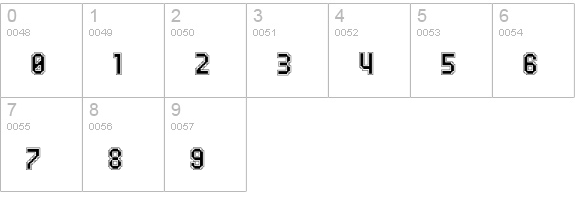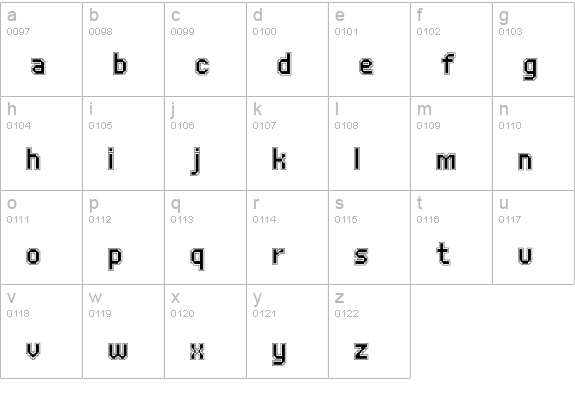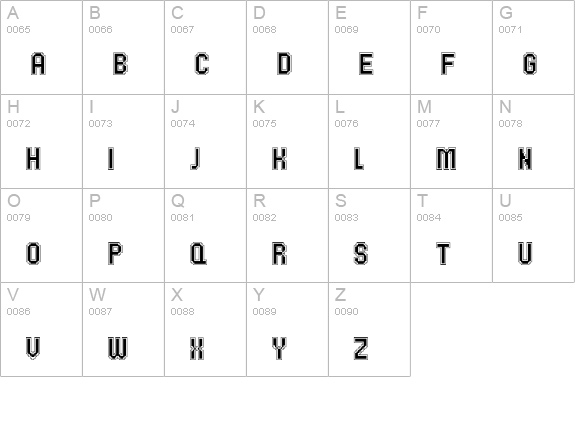
UNDA-Outline Font Details
Introducing UNDA-Outline font, a stunning and versatile typeface that is sure to make a statement in any design project. With its unique and eye-catching outline style, this font is perfect for adding a touch of modernity and sophistication to your work. Whether you're designing a logo, creating a poster, or crafting a print advertisement, UNDA-Outline font will effortlessly captivate your audience. What makes UNDA-Outline font even more impressive is that it is available for free! That's right, this incredible font can be downloaded at absolutely no cost from FontsMarket.com. We believe in the power of creativity and accessibility, which is why we have made UNDA-Outline font freely available to all designers, enthusiasts, and typographers. With its clean lines, elegant curves, and balanced proportions, UNDA-Outline font offers a wide range of possibilities for your creative endeavors. Its versatility allows it to seamlessly adapt to various design styles, making it a go-to choice for both digital and print projects. From bold headlines to delicate lettering, UNDA-Outline font will effortlessly elevate your designs to new heights. But UNDA-Outline font isn't just visually stunning; it also boasts exceptional legibility and readability. Each character is meticulously crafted to ensure optimal clarity, allowing your message to be effortlessly conveyed to your audience. Whether it's a long paragraph or a short snippet of text, UNDA-Outline font guarantees a smooth reading experience. So why wait? Enhance your designs with the captivating and versatile UNDA-Outline font today. Don't miss out on the opportunity to download this incredible font for free at FontsMarket.com. Unleash your creativity, make a lasting impression, and let UNDA-Outline font be the perfect addition to your design toolkit.